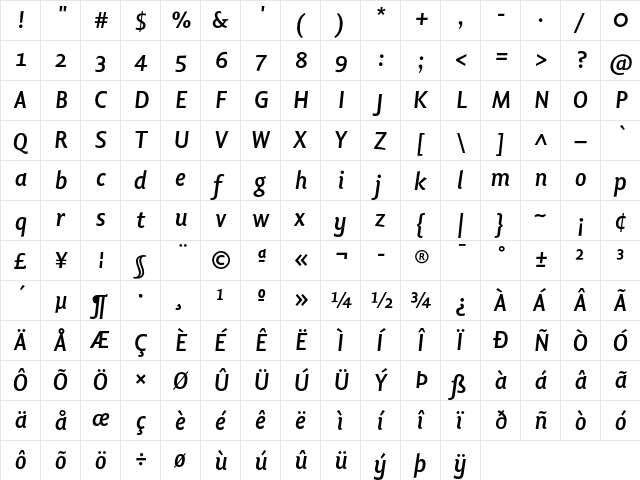
Lisboa OSF Bold Italic
Design Context for Lisboa OSF Typeface
Lisboa OSF is a composed and adaptable typeface that performs quietly and consistently across a wide range of design contexts. Its italic angle brings a sense of urgency and motion to the letterforms. Its bold stroke weight gives it real presence on the page.
Pro Tip: Try Lisboa OSF for annotation and caption copy alongside an upright companion — the contrast in angle creates a dynamic but ordered typographic system.